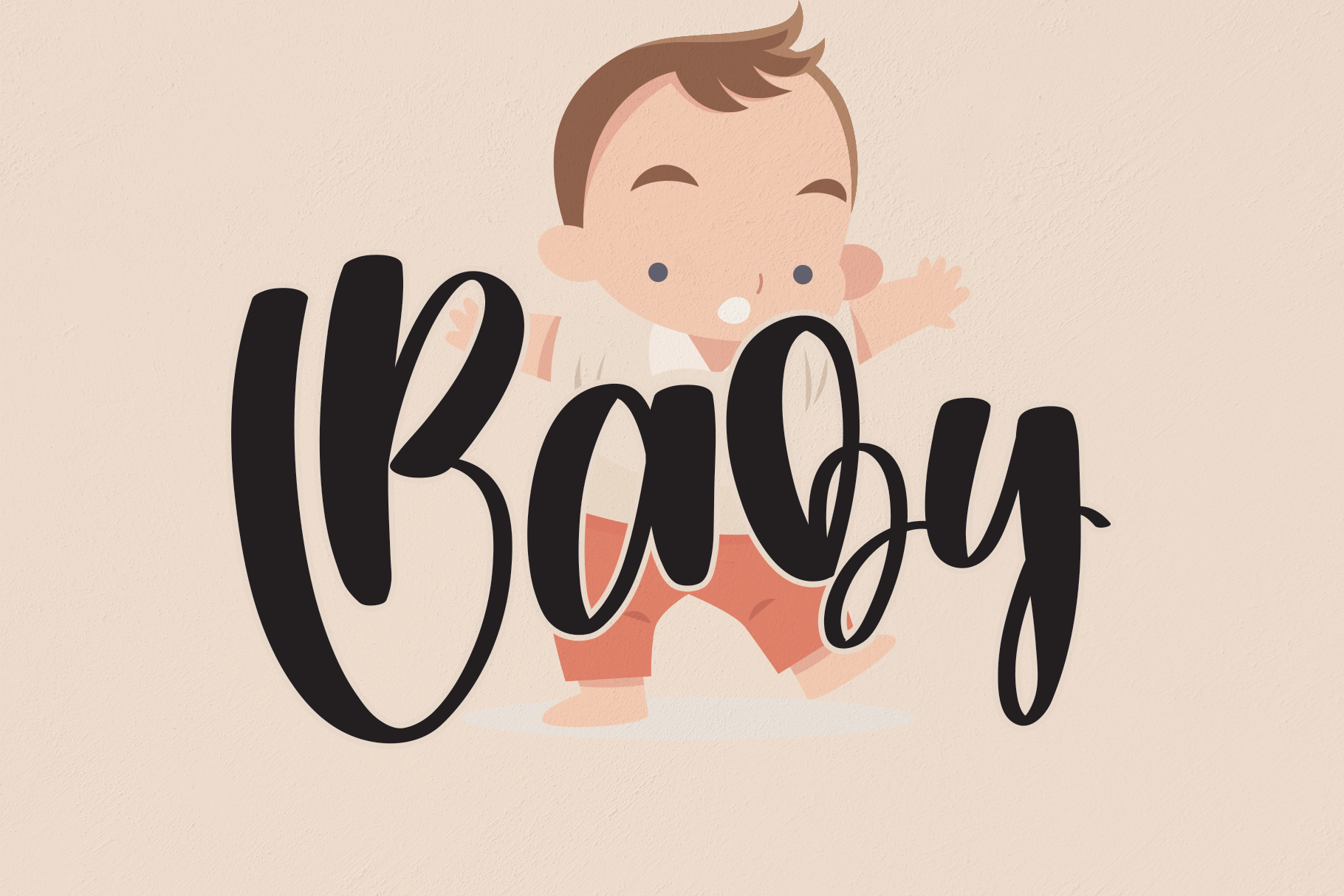
August Kids Handwriting Font (Otf, Ttf) When It Comes To Cool Boy Fonts, The Handwritten Style Is Clearly A Popular Choice.
See more ideas about fonts, lettering fonts, cool fonts. Create good names for games, profiles, brands or. Baby aliya by nya letter.
Call Me Baby By Typer Std.